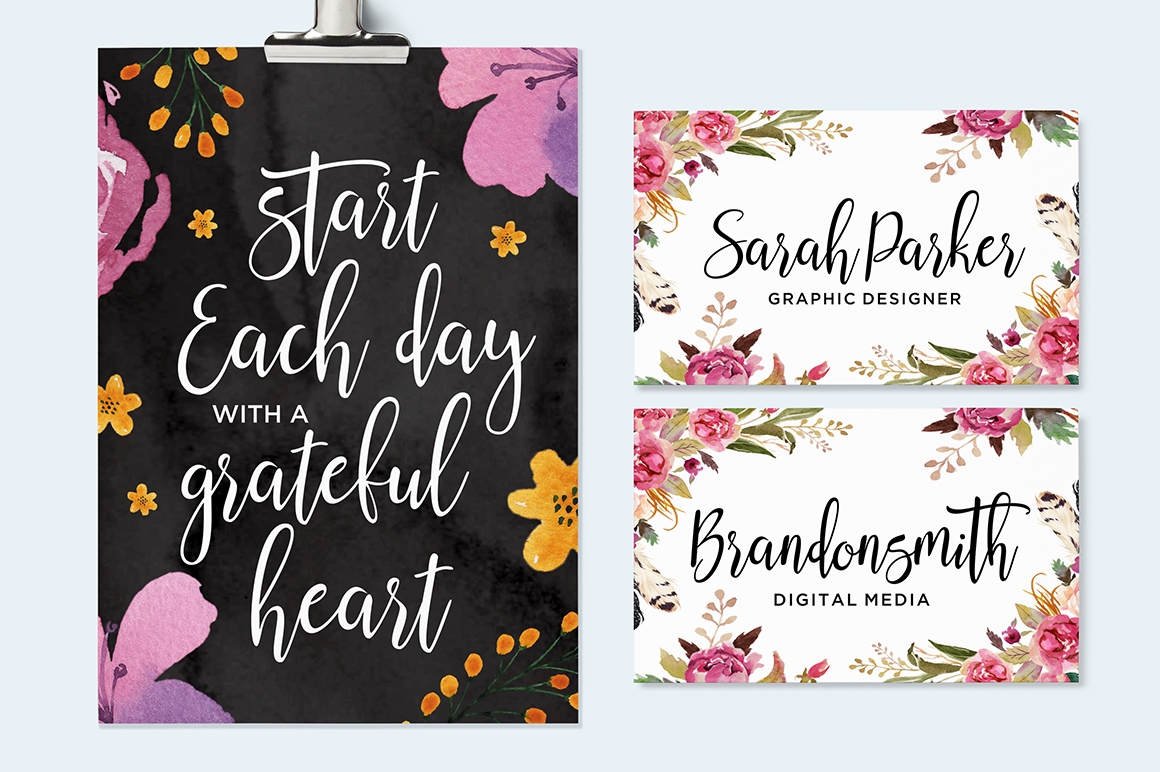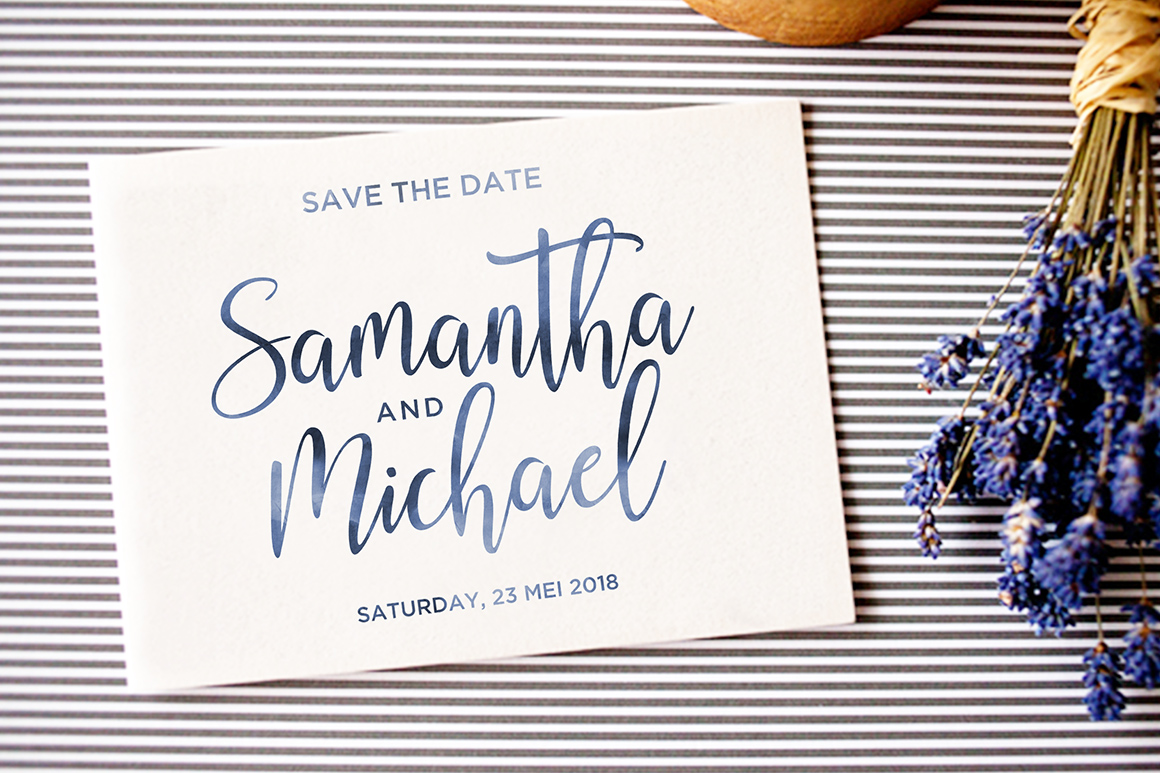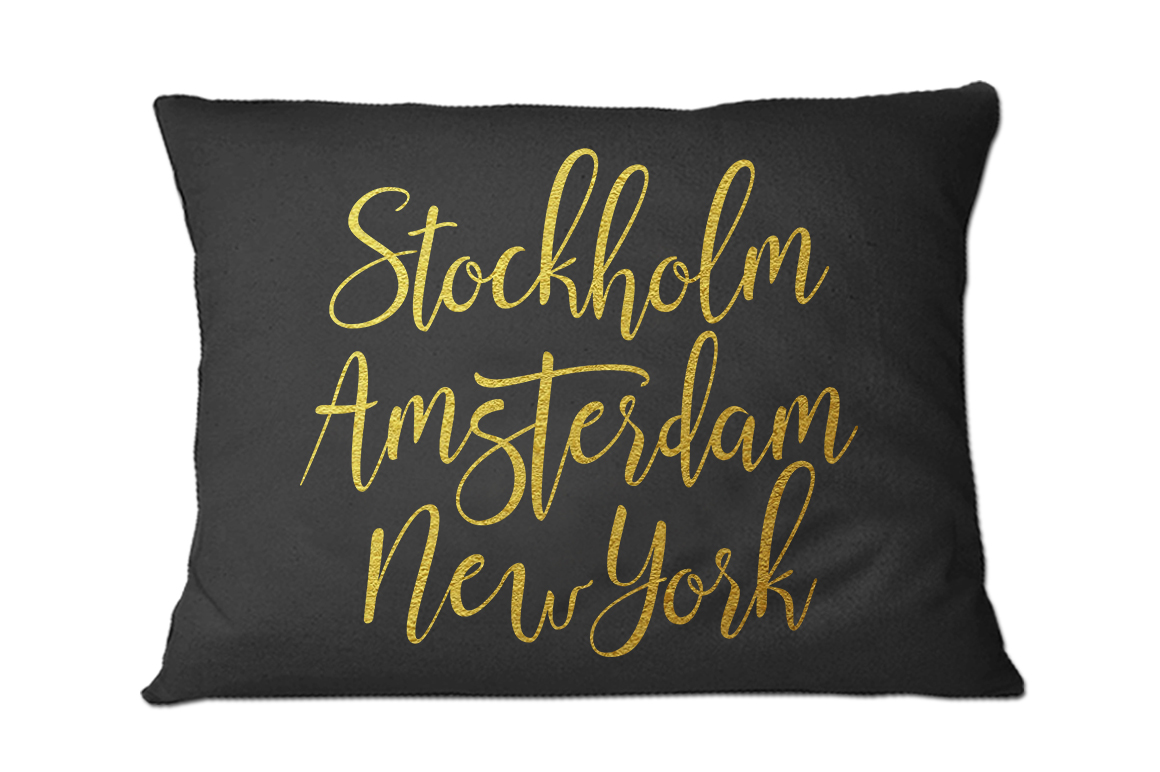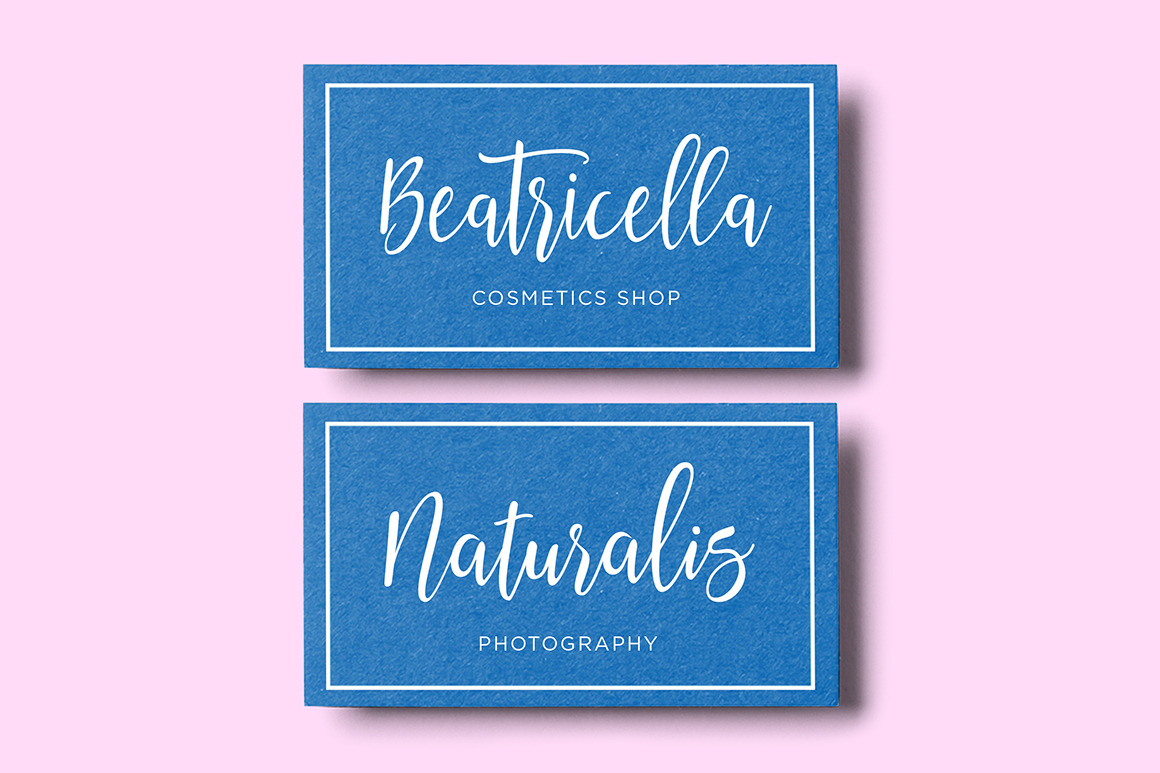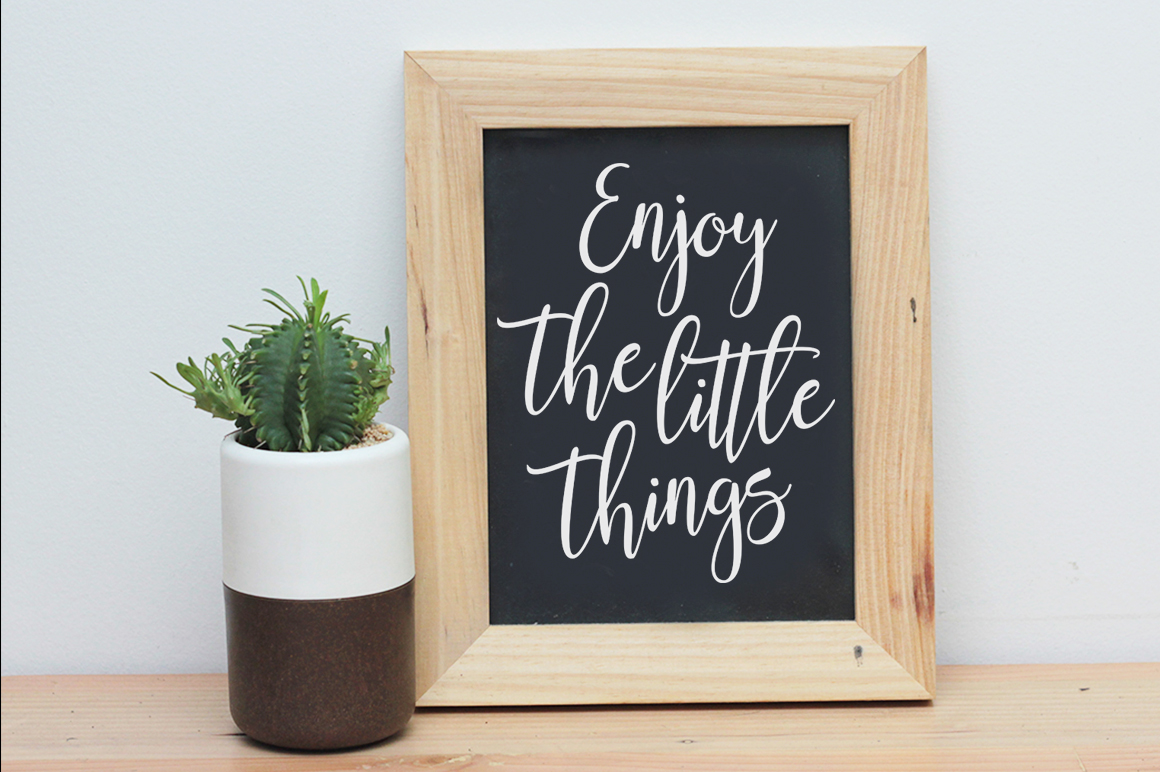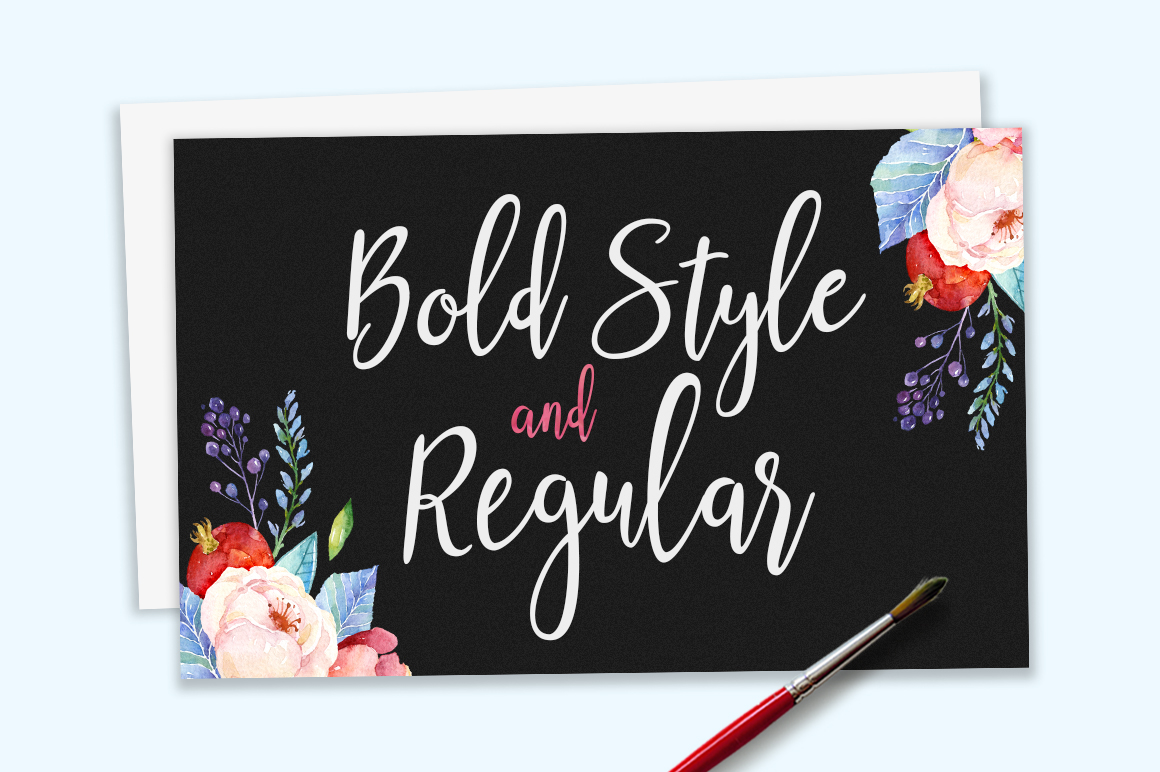
Introducing Gabriella Script: A Hand-Brushed Modern Calligraphy Script Font
Are you tired of using the same old fonts in your designs? Do you want to add a touch of elegance and sophistication to your projects? Look no further than Gabriella Script, a stunning hand-brushed modern calligraphy script font. Created with both pen and brush, this font is the perfect addition to any designer’s toolkit.
The Story Behind Gabriella Script
Gabriella Script is a labor of love, carefully crafted by a skilled designer who wanted to bring a personal touch to the world of typography. Every letter, every curve, and every flourish was meticulously painted on paper with a combination of pen and brush. The result is a font that exudes warmth, character, and a sense of human touch.
What Makes Gabriella Script So Special?
So, what sets Gabriella Script apart from other fonts on the market? Here are just a few features that make it truly unique:
- Hand-brushed authenticity: Every letterform in Gabriella Script was carefully painted on paper, giving it a genuine, hand-crafted feel that’s hard to replicate with digital fonts.
- Modern calligraphy style: Gabriella Script boasts a modern calligraphy style that’s perfect for designs that require a touch of sophistication and elegance.
- Optimized for digital use: Despite being created with traditional tools, Gabriella Script has been digitally optimized for use on a variety of platforms, ensuring that it looks great in any context.
Uses for Gabriella Script
Gabriella Script is an incredibly versatile font that can be used in a wide range of design projects, including:
- Wedding invitations and stationery: Add a touch of romance and whimsy to your wedding designs with Gabriella Script.
- Branding and packaging: Use Gabriella Script to create eye-catching logos, labels, and packaging that stands out from the crowd.
- Social media graphics: Add a personal touch to your social media posts with Gabriella Script, perfect for creating engaging and shareable content.
- Signage and display graphics: Use Gabriella Script to create stunning signage and display graphics that showcase your brand’s personality.
Tips for Using Gabriella Script
To get the most out of Gabriella Script, here are a few tips to keep in mind:
- Use it sparingly: While Gabriella Script is a beautiful font, it can be overwhelming if overused. Use it sparingly to add emphasis and create visual interest.
- Experiment with colors: Gabriella Script looks great in a variety of colors, so don’t be afraid to experiment and find the perfect hue for your design.
- Pair it with contrasting fonts: Pair Gabriella Script with contrasting fonts to create visual interest and add depth to your design.
Gabriella Script is a truly unique and special font that’s sure to elevate your designs to the next level. With its hand-brushed authenticity, modern calligraphy style, and digital optimization, it’s the perfect addition to any designer’s toolkit. Whether you’re a seasoned pro or just starting out, Gabriella Script is a must-have font that’s sure to inspire and delight.